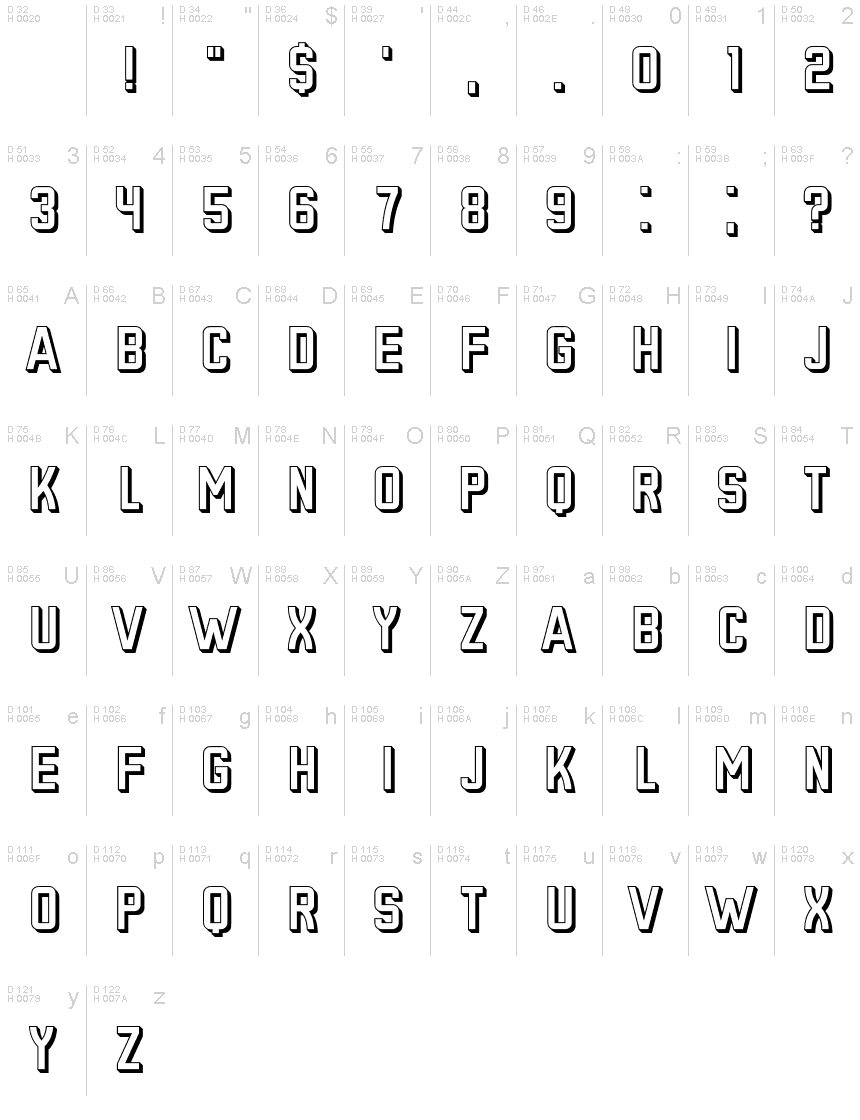
Precedence 3D Regular
Introducing Precedence 3D Regular, a bold and eye-catching display font designed by Vladimir Nikolic. Its 3D sans serif style gives it a unique dimension, allowing for creative and diverse projects. Its condensed nature makes it perfect for headlines, logos, posters and more. With its strong yet elegant style, Precedence 3D Regular is sure to make an impact!